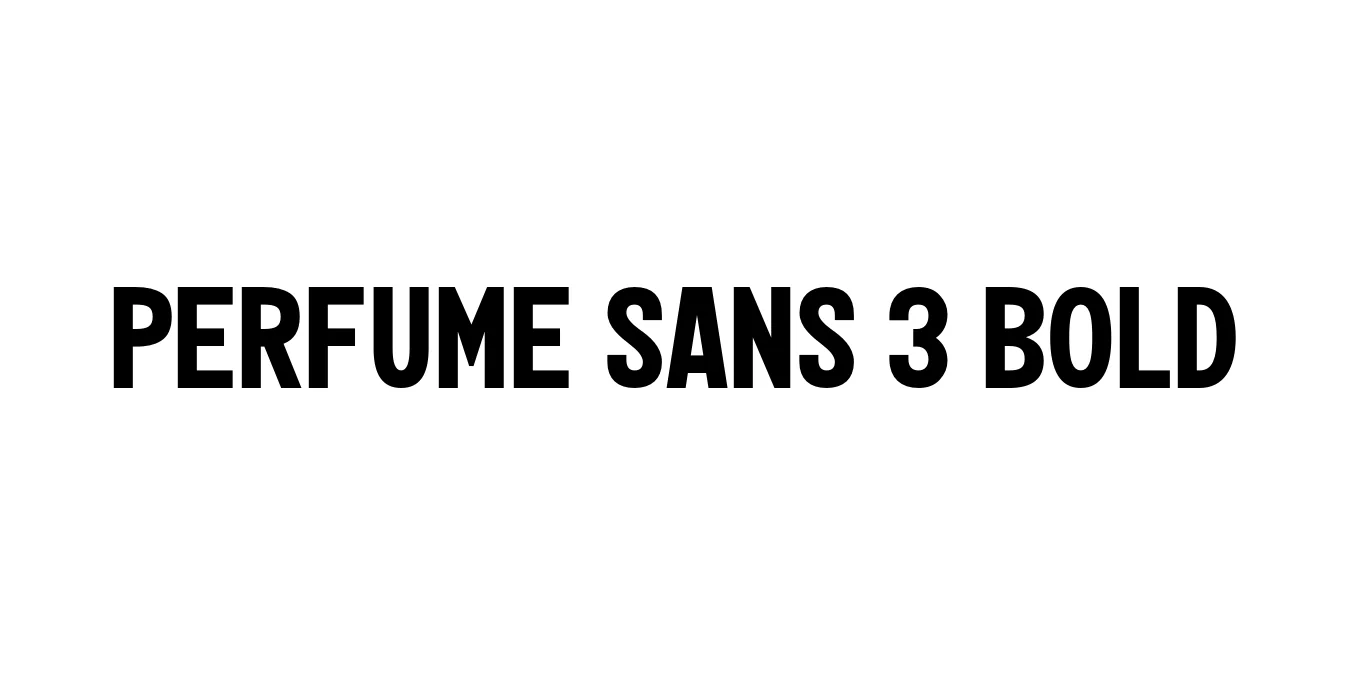
Perfume Sans 3 Bold
Designed by Invasi Studio
Perfume Sans 3 Bold is a sophisticated geometric sans-serif typeface specifically designed to capture the essence of luxury branding and modern minimalism. Drawing inspiration from high-end fragrance packaging and haute couture typography, this bold weight offers a striking balance between sharp mechanical precision and elegant visual harmony. The font features clean, open apertures and distinct geometric structures that ensure maximum legibility while maintaining an aura of exclusivity and refinement.
Developed as part of a comprehensive multi-weight family, the Bold version is particularly effective for large-scale display applications where visual impact is paramount. Its wide character set and meticulously kerned letterforms make it a favorite among graphic designers working in the fashion, beauty, and lifestyle sectors. Whether used for mastheads, retail signage, or digital hero banners, Perfume Sans 3 Bold delivers a contemporary aesthetic that elevates any design project it is integrated into.
Perfume Sans 3 Bold Best Uses
Ideal for high-end luxury logos and premium perfume packaging design.
Perfect for bold magazine headlines and high-fashion spread layouts.
Excellent for impactful hero sections and sophisticated landing pages.
Great for promotional banners requiring a clean, authoritative, and sophisticated look.